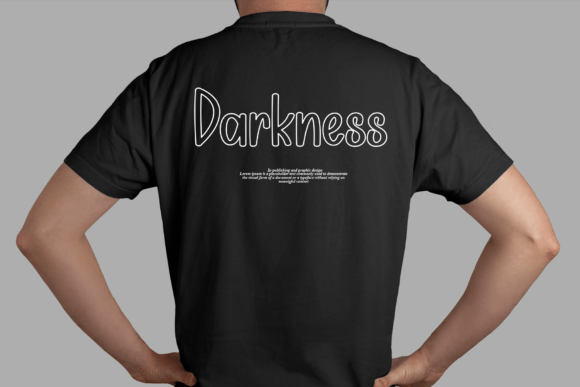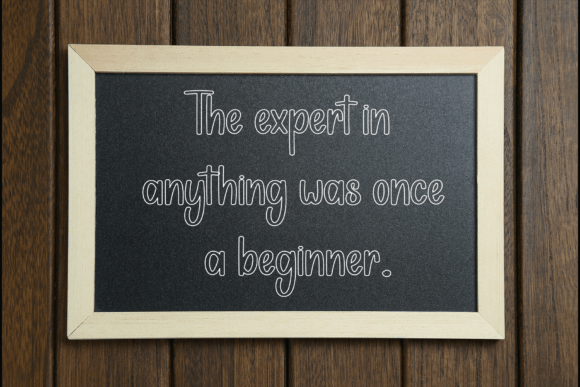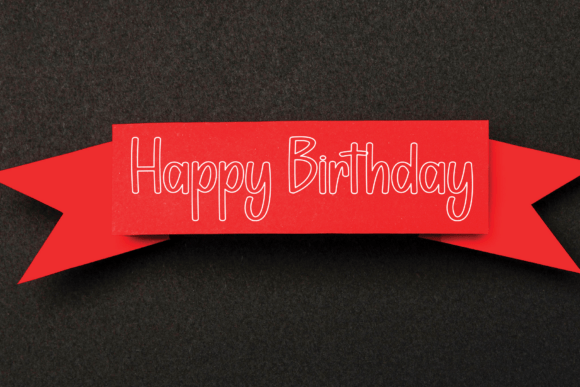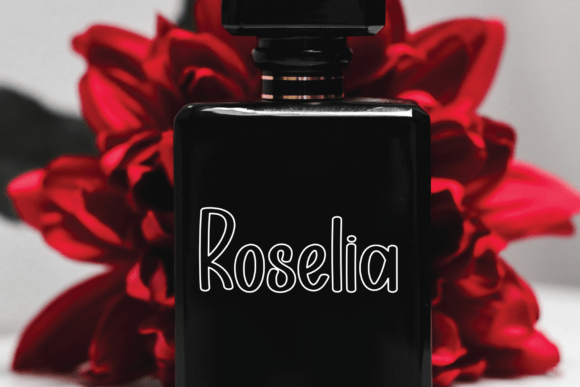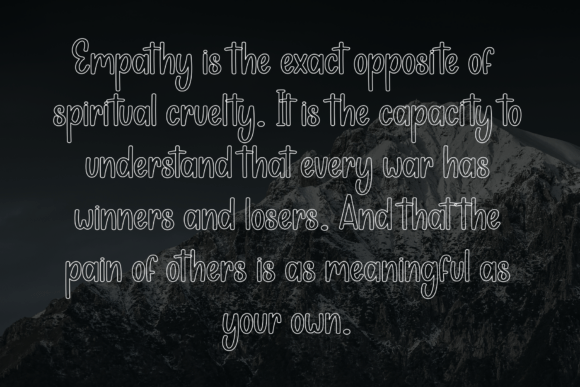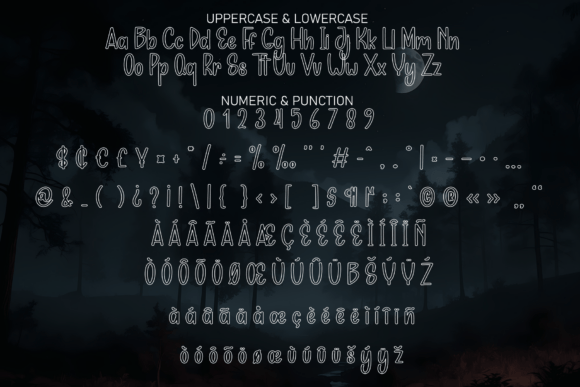
Introduction to Simple Midnight Font
This handwritten playful display font bursts with personality and charm.
With its quirky strokes and carefree letterforms, it brings a delightful handmade feel thatโs perfect for childrenโs books, greeting cards, posters, and creative branding Each character dances with fun energy, making your designs feel friendly, approachable, and full of joy.
Key Features of Simple Midnight Font
Why Choose Simple Midnight Font?